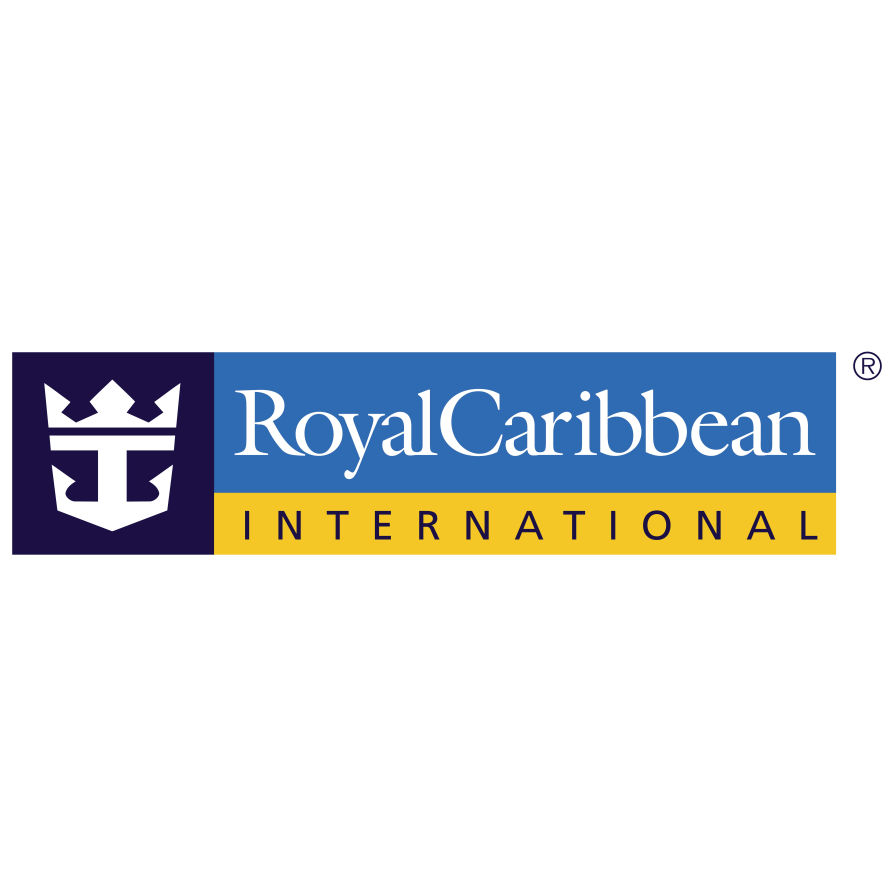
Royal Caribbean Font
EntertainmentRoyal Caribbean International is a Miami-based cruise line brand, originally founded in Norway in 1968. It has become a global leader in the cruise industry, known for its diverse range of activities, dining options, and entertainment.
The logo of Royal Caribbean features two typefaces: Galliard, an old-style serif font by Mathew Carter based on Robert Granjon's work, and Frutiger, a humanist sans-serif font by Adrian Frutiger forming "INTERNATIONAL" in the logo.